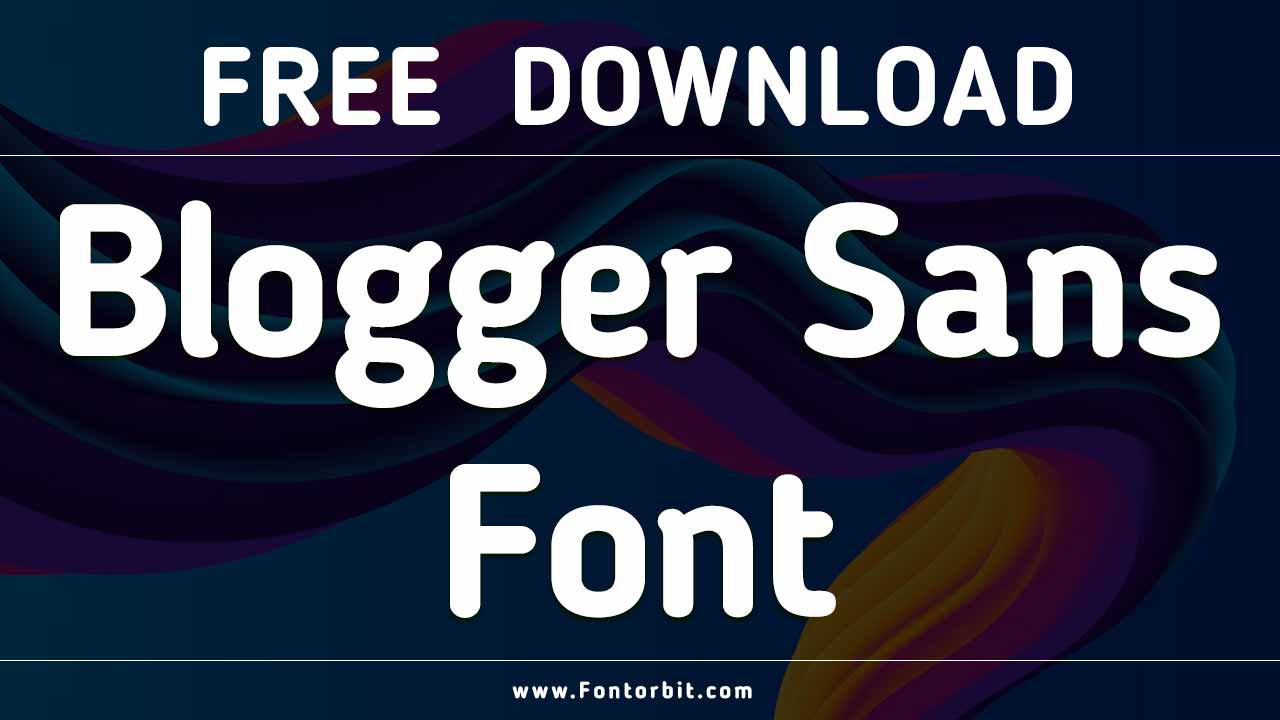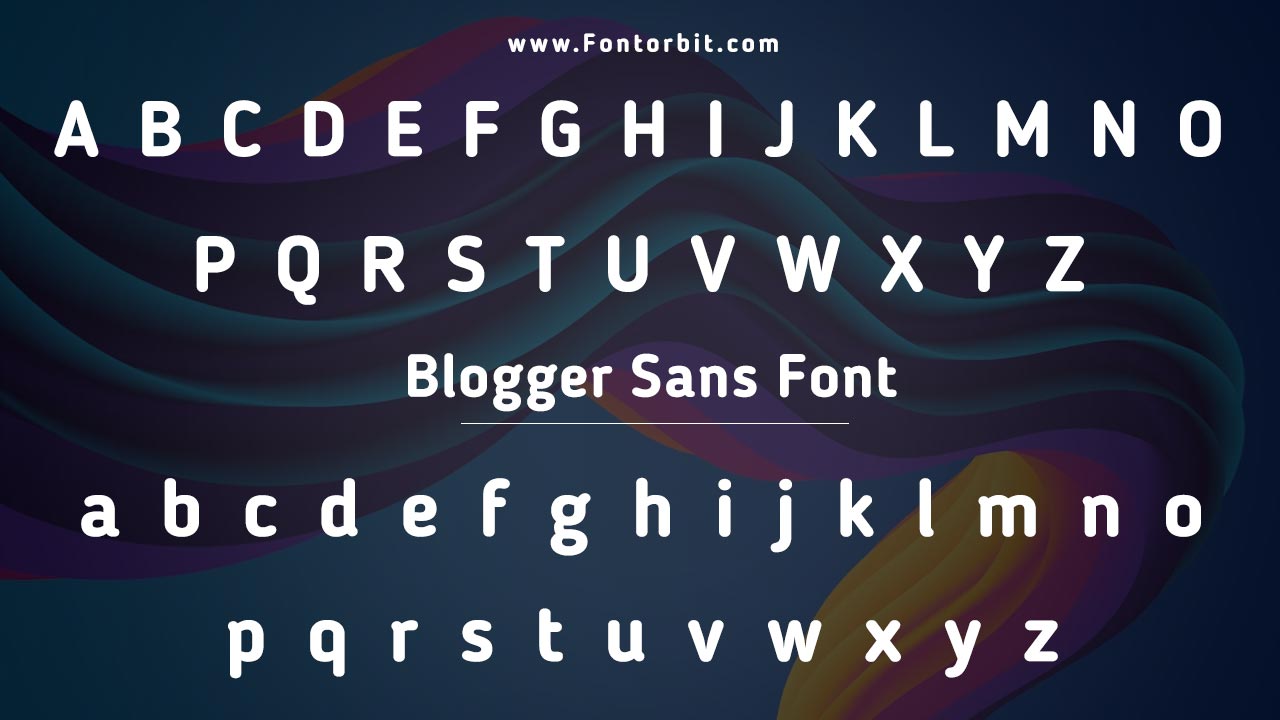
Blogger Sans has quickly gained popularity among designers. Designed by Sergiy Tkachenko as FirstSiteGuide’s custom typeface, this clean and modern font was primarily created for website headlines but is versatile enough for various uses. Drawing inspiration from the clarity and legibility of fonts like Dosis, it brings a contemporary feel with enhanced support for Cyrillic languages, making it a great choice for global content.
The Blogger Sans font family is available in a variety of weights and styles. It’s adaptable for any design project (headlines, logos, or body text). With support for multiple languages and extra symbols, it’s not just stylish, but also functional.
Key Features Of Blogger Sans
- Versatility: With a variety of weights and styles, Blogger Sans can be used for anything from bold headlines to fine body text.
- Cyrillic Language Support: In addition to supporting Latin characters, Blogger Sans has been designed to support Cyrillic alphabets, making it ideal for global audiences.
- Extra Symbols: The font includes additional currency symbols, error signs, and dingbats, expanding its usability for all kinds of content.
- Smooth Kerning: The kerning has been finely tuned to ensure a smooth and readable flow, whether you’re designing web content or printed material.
Blogger Sans Font Family
The Blogger Sans font family includes multiple styles and weights, giving you the flexibility to choose the perfect option for your design. Below are the font family names:
- Blogger Sans Regular
- Blogger Sans Light
- Blogger Sans Medium
- Blogger Sans Bold
- Blogger Sans Italic
- Blogger Sans Light Italic
- Blogger Sans Medium Italic
- Blogger Sans Bold Italic
Why Choose Blogger Sans?
Blogger Sans offers a balance of style and function, making it ideal for both web and print applications. Whether you’re designing a logo, writing content for a blog, or working on any modern font project, this font family provides the perfect combination of clarity and elegance.
Here’s a breakdown of why Blogger Sans is such a great fit for different design needs:
| Feature | Description |
| Legibility | Clear and easy to read across all devices. |
| Language Support | Supports Cyrillic languages and regional characters. |
| Versatility | Multiple weights and styles for various design applications. |
| Additional Symbols | Includes currency symbols, error signs, and dingbats for added functionality. |
How To Use Blogger Sans In Your Designs
Using Blogger Sans is simple and effective. Whether you’re working on a website or creating a printed brochure, you can easily implement this font to add a touch of modernity. Here are some ideas for how to incorporate Blogger Sans into your designs:
- Headlines: Use Blogger Sans Bold or Blogger Sans Bold Italic for eye-catching headlines that stand out.
- Body Text: The clean design of Blogger Sans Regular or Blogger Sans Light works perfectly for the body text of articles, websites, or blog posts.
- Logos: For a minimalist look, Blogger Sans is a great choice for logo design, giving your brand a modern and approachable aesthetic.
Blogger Sans In Action: Perfect For Different Use Cases
Blogger Sans can be paired with other fonts like Open Sans or Josefin Sans for a complete typographic system. Whether you’re looking for something clean and professional or a bit more stylish, the versatility of Blogger Sans allows it to blend seamlessly with a variety of design elements.
Here’s a list of the most common uses:
- Websites: Perfect for both large and small text elements. Use Blogger Sans Bold for headings and Blogger Sans Regular for content.
- Business Cards: Create a sleek and professional look with Blogger Sans Light or Medium.
- Marketing Materials: The boldness of Blogger Sans Bold Italic will grab attention in brochures and flyers.
2.Can I Use Blogger Sans For My Logo Design?
Absolutely! Blogger Sans is perfect for logo fonts due to its clean and modern look.
3.Does Blogger Sans Support Cyrillic Languages?
Yes, Blogger Sans supports Cyrillic alphabets, making it suitable for global use.
4.What Are The Different Styles In The Blogger Sans Family?
The font family includes Blogger Sans Regular, Light, Medium, Bold, Italic, and combinations of these styles.
6.How Does Blogger Sans Compare To Other Google Fonts?
Blogger Sans offers a modern sans serif feel similar to Open Sans but with better support for Cyrillic languages and extra symbols.